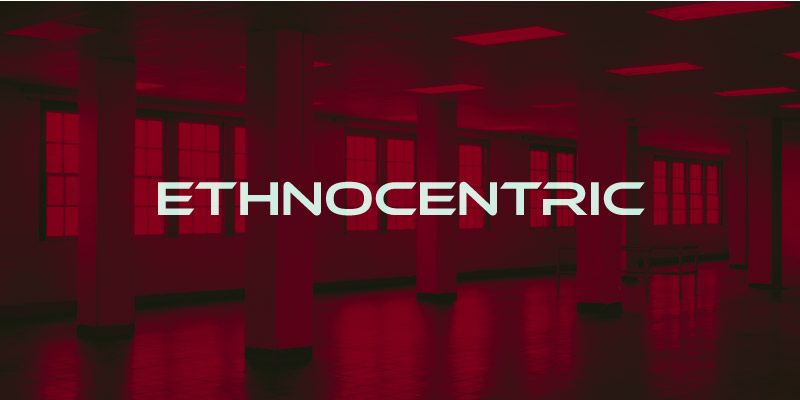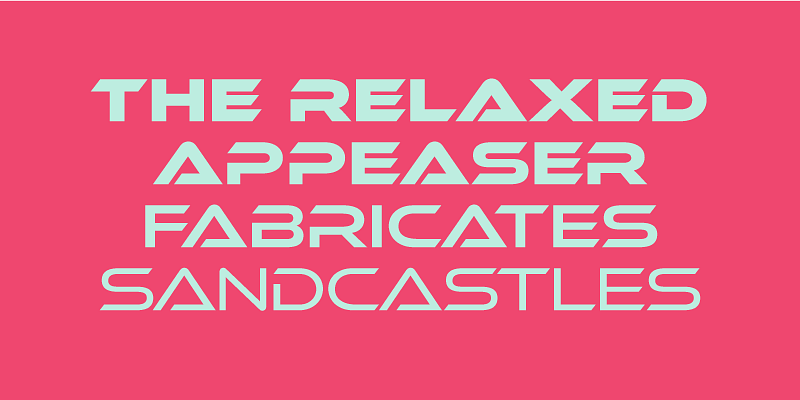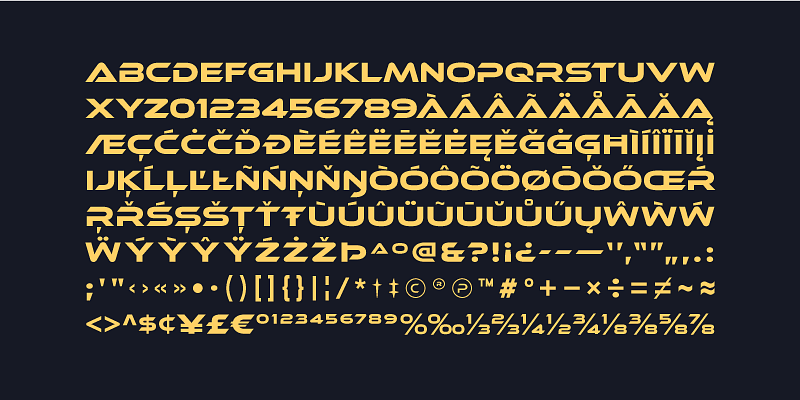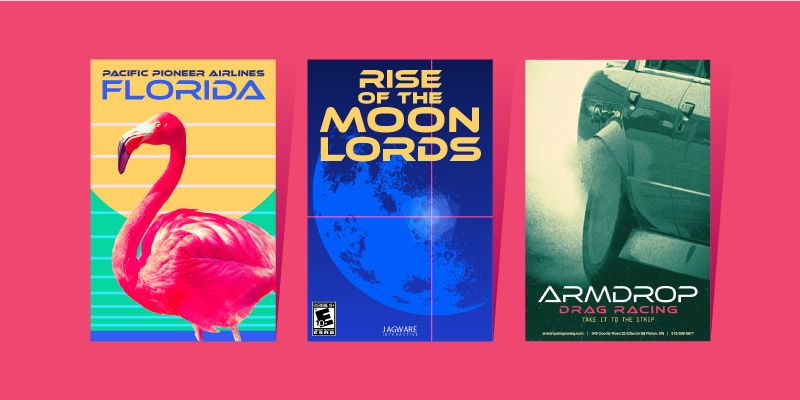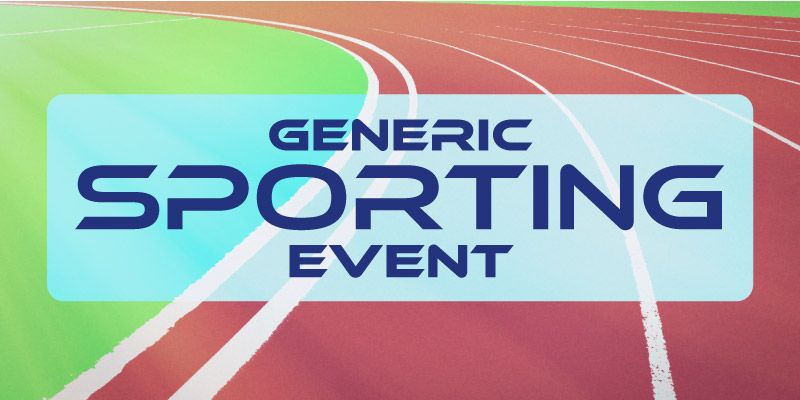
Ethnocentric stretches its letterforms wide, breaks strokes into decisive segments, and cuts terminals at sharp angles. The result suggests speed and engineered performance before the reader reaches the words. It is particularly strong on sporting equipment and vehicles: paddle names, ski graphics, bicycle frames, helmets, racing components, and competition branding. Five weights run from UltraLight to Bold with corresponding italics, allowing the same visual vocabulary to carry both quieter technology labels and forceful model names. Use the open, horizontal forms where a short name can spread across a physical surface or wide screen.